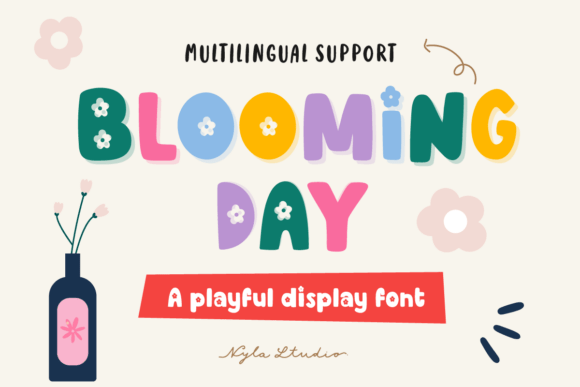
When Creativity Blooms
As designers, we’ve all been there – stuck in a creative rut, desperate for that spark that ignites our imagination. For me, it was a quiet morning in the studio, surrounded by blank sheets of paper and a lingering sense of doubt. But then, a simple idea struck – what if I added a touch of whimsy to a design project?
That’s when I discovered the Blooming Day Font, a playful sans-serif display font that brings a smile to your face. This charming font is perfect for adding a touch of personality to your designs, whether it’s a playful quote, a poster, or a logo. With its tiny flower element, Blooming Day Font is a versatile tool for designers looking to add a creative twist to their work.
Blooming Day Font Key Features
- Unique Characteristic: The font features a unique blend of hand-drawn and digital elements, creating a natural and organic feel.
- Font Weight: Available in 6 weights, from Light to Black
Blooming Day Font Review
I recently had the chance to work with the Blooming Day Font, and I must say it’s a mixed bag. Here’s my honest review.
- The font’s floral theme is beautifully executed, with intricate details that give it a playful touch.
- The font’s various weights and styles allow for a lot of creative flexibility, making it suitable for a range of design projects.
- The font is highly legible, even at smaller sizes, which is a must-have for any font.
- The font’s limited language support may be a issue for designers who need to work with non-English texts.
- The font’s high contrast may not be suitable for designs with dark backgrounds, as it can be difficult to read.
- The font’s overall feel is somewhat generic, which may not stand out in a crowded design landscape.
The Blooming Day Font is a solid choice for designers who need a playful, floral font for their projects. While it has some limitations, it’s still a versatile and highly legible font that’s worth considering. With a bit of creativity, designers can make the most of this font’s strengths and work around its weaknesses.
The Blooming Day Font is ideal for creating whimsical and playful designs. Use it for:
- Children’s party decorations and materials.
- Floral-themed designs and illustrations.
For the best results, pair the Blooming Day Font with bright, pastel colors and delicate illustrations.
Alternatives to Blooming Day Font
Great Vibes Font is a beautiful, handwritten font that is perfect for creating a whimsical and playful feel in your designs. It’s ideal for use in invitations, greeting cards, and other creative projects where a touch of personality is needed.
Compared to Blooming Day Font, Great Vibes Font has a more casual and relaxed feel, making it suitable for projects that require a more laid-back tone.
Pacifico Font is a modern, elegant font that is perfect for creating a sophisticated and refined feel in your designs. It’s ideal for use in logos, branding, and other projects where a touch of luxury is needed.
Compared to Blooming Day Font, Pacifico Font has a more streamlined and minimalist feel, making it suitable for projects that require a more polished tone.
Alex Brush Font is a beautiful, handwritten font that is perfect for creating a personal and emotional feel in your designs. It’s ideal for use in weddings, baby announcements, and other projects where a touch of warmth is needed.
Compared to Blooming Day Font, Alex Brush Font has a more delicate and feminine feel, making it suitable for projects that require a more romantic tone.
Dancing Script Font is a fun and playful font that is perfect for creating a lively and energetic feel in your designs. It’s ideal for use in advertisements, social media posts, and other projects where a touch of excitement is needed.